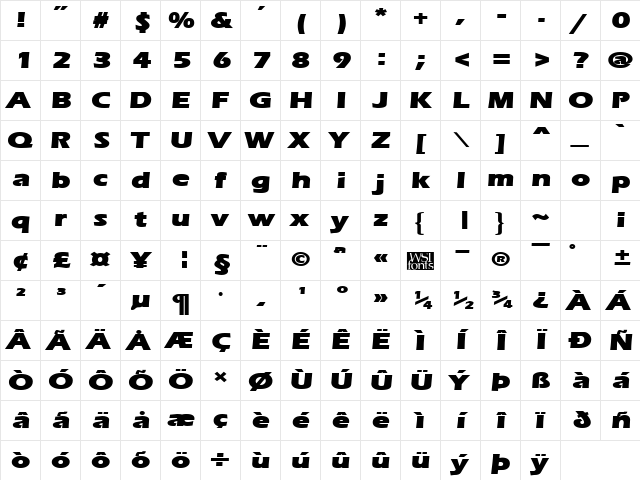
ErgoeMildBlackExpanded Regular
ErgoeMildBlackExpanded Regular Family
ErgoeMildBlackExpanded Regular
ErgoeMildBlackExpanded Regular Font Preview
ErgoeMildBlackExpanded Regular Preview
ErgoeMildBlackExpanded Regular Character Map
Complete ErgoeMildBlackExpanded Regular glyph index. Displaying only characters natively supported by ErgoeMildBlackExpanded Regular font.
Design Context for ErgoeMildBlackExpanded
ErgoeMildBlackExpanded is a composed and adaptable typeface that performs quietly and consistently across a wide range of design contexts.